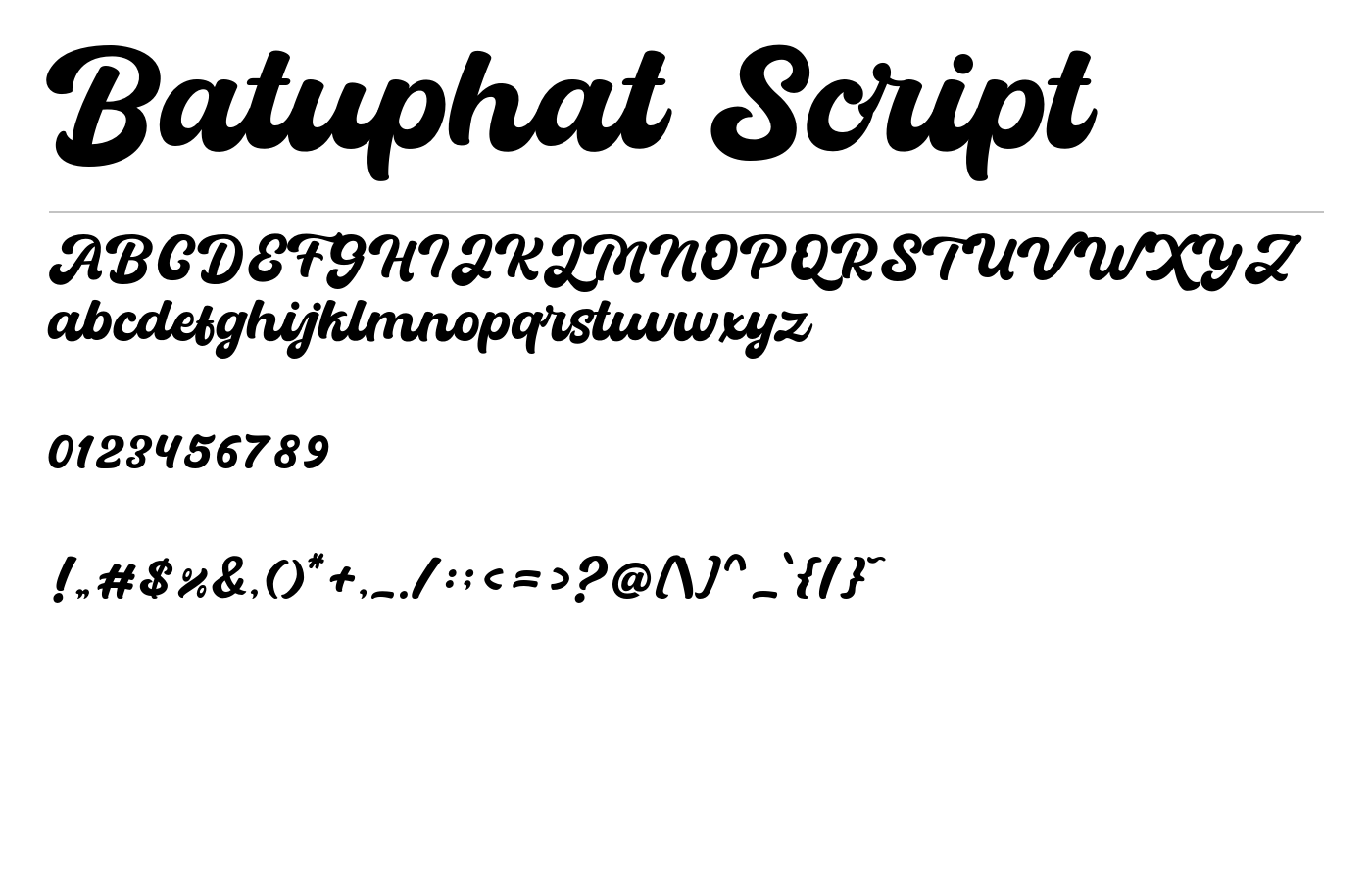
Batuphat Script is a bold, rounded script font with a playful yet confident charm, featuring smooth, connected strokes and a slightly condensed width that ensures readability. Its lively character makes it perfect for branding, logos, and headlines that want to convey friendliness and warmth with a modern, casual vibe. This font’s clear letterforms and balanced contrast make it ideal for creative projects looking to blend elegance with approachability.
Batuphat Script Font
About Batuphat Script Font